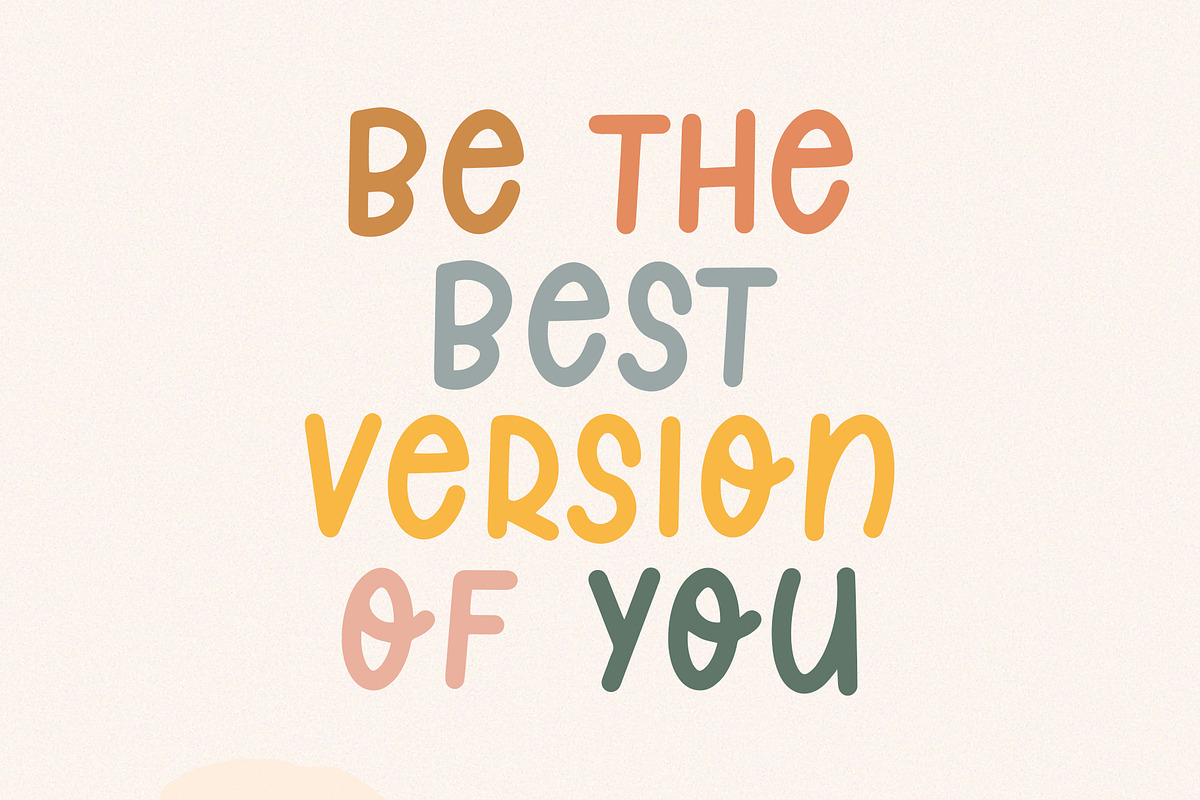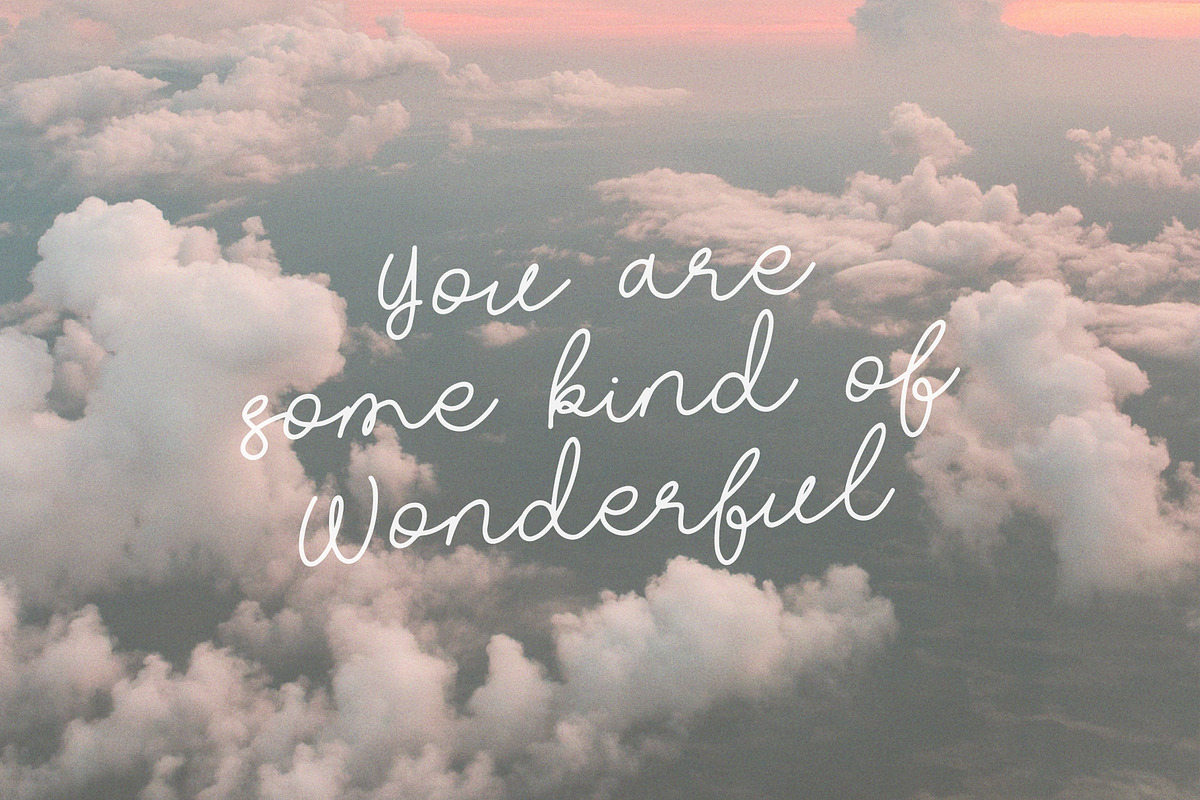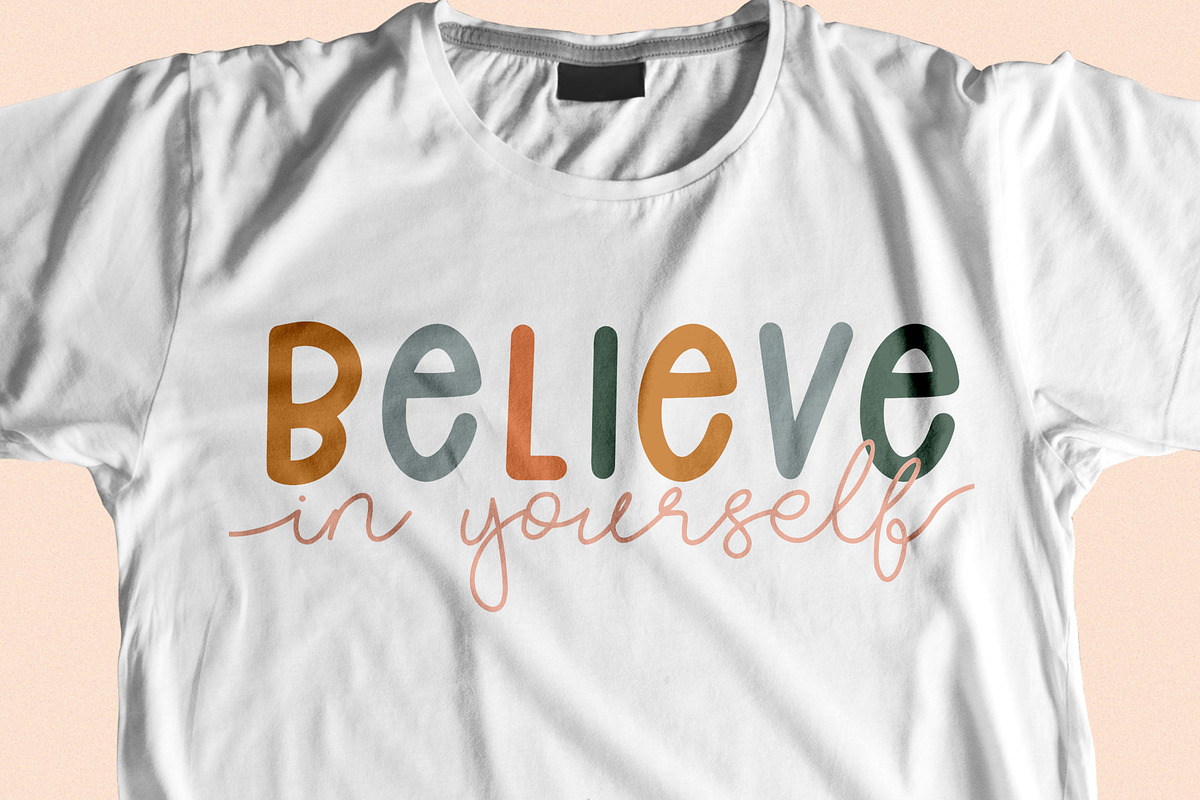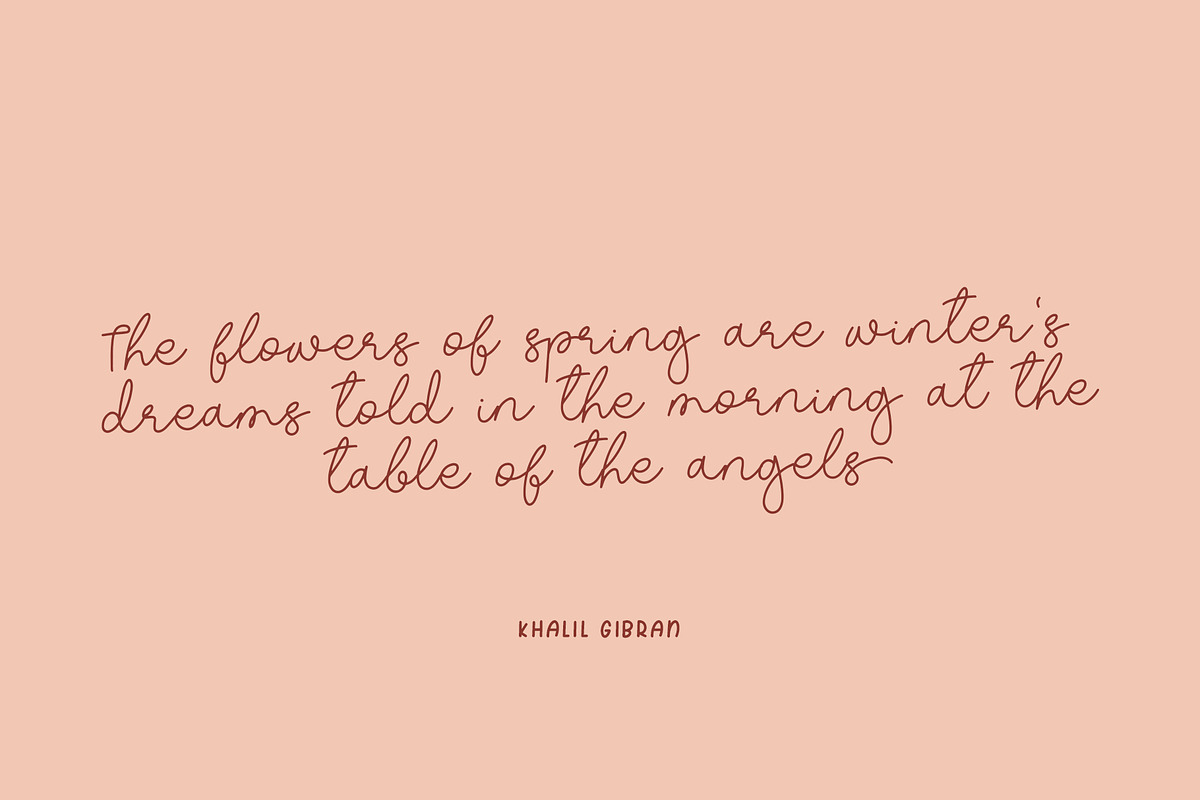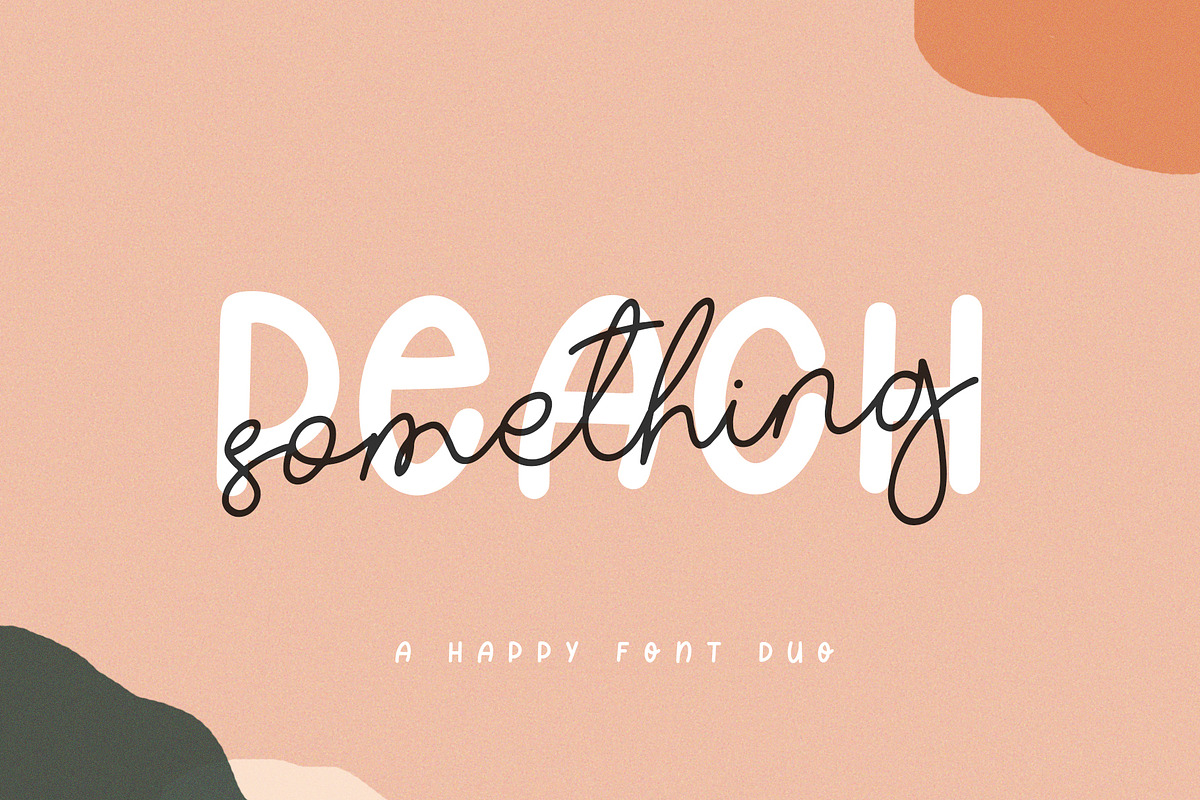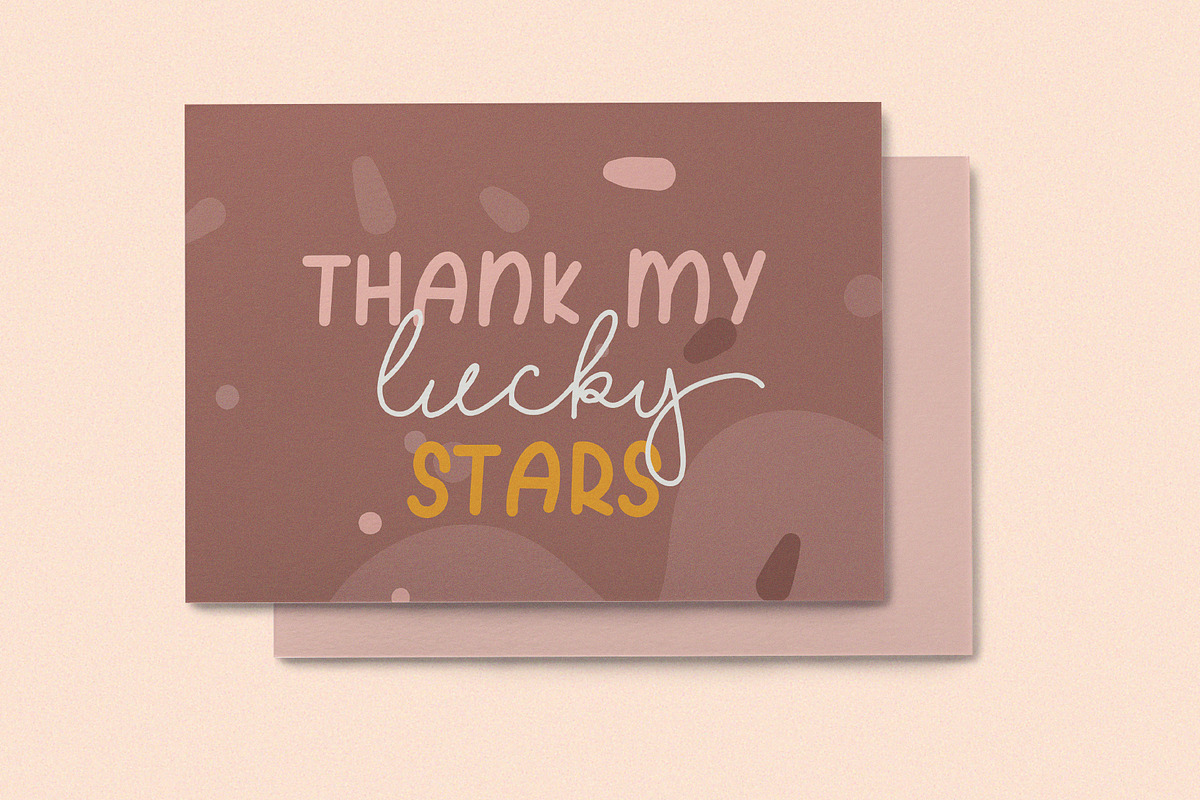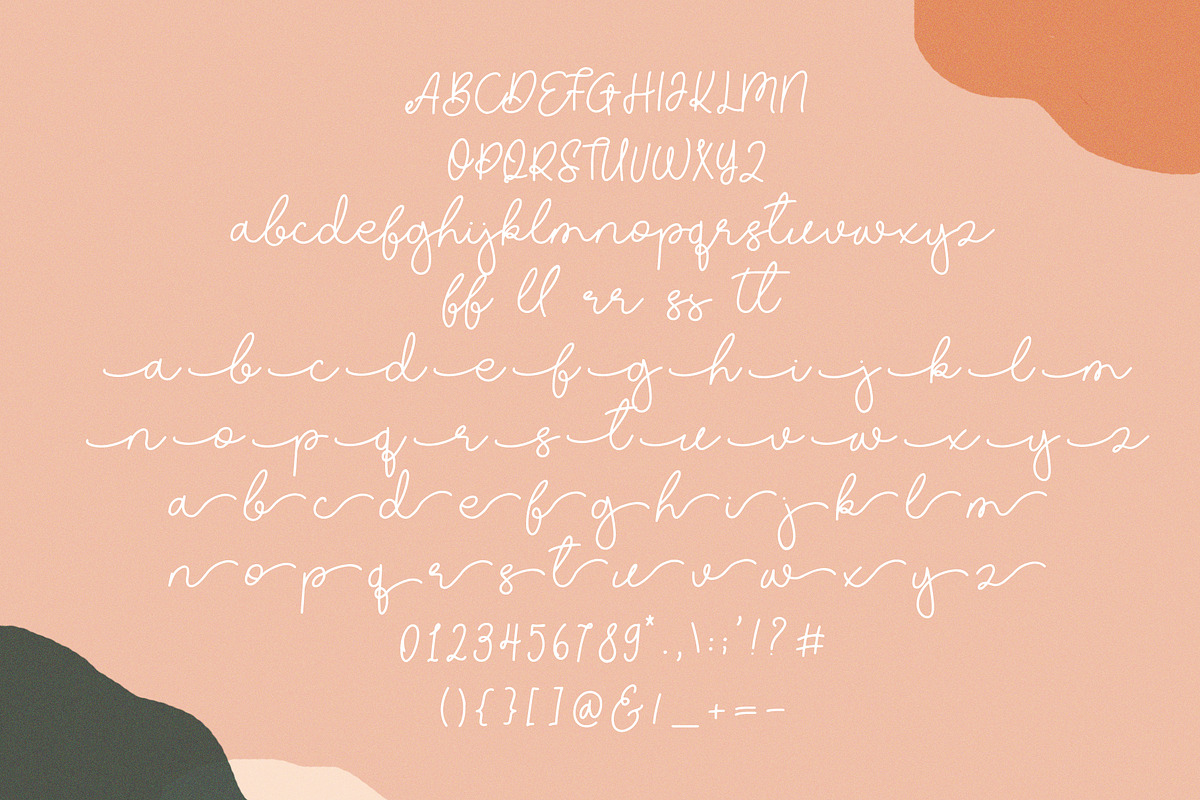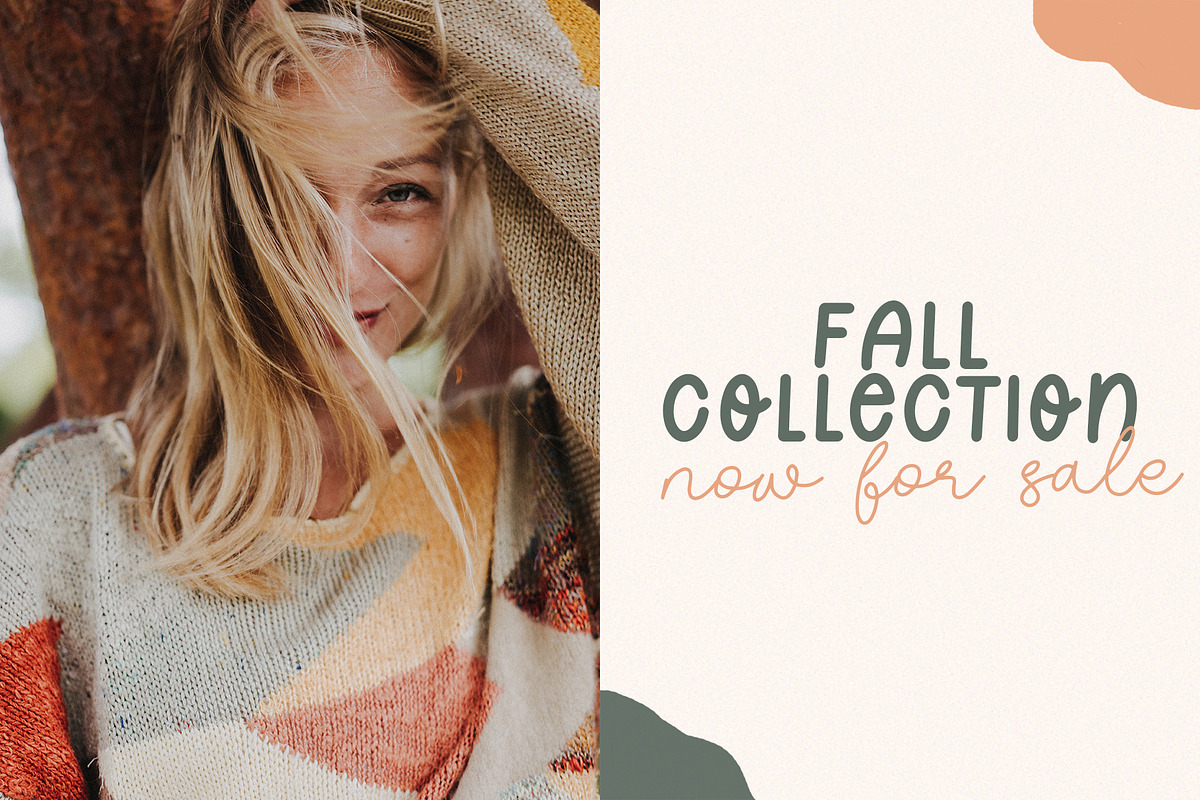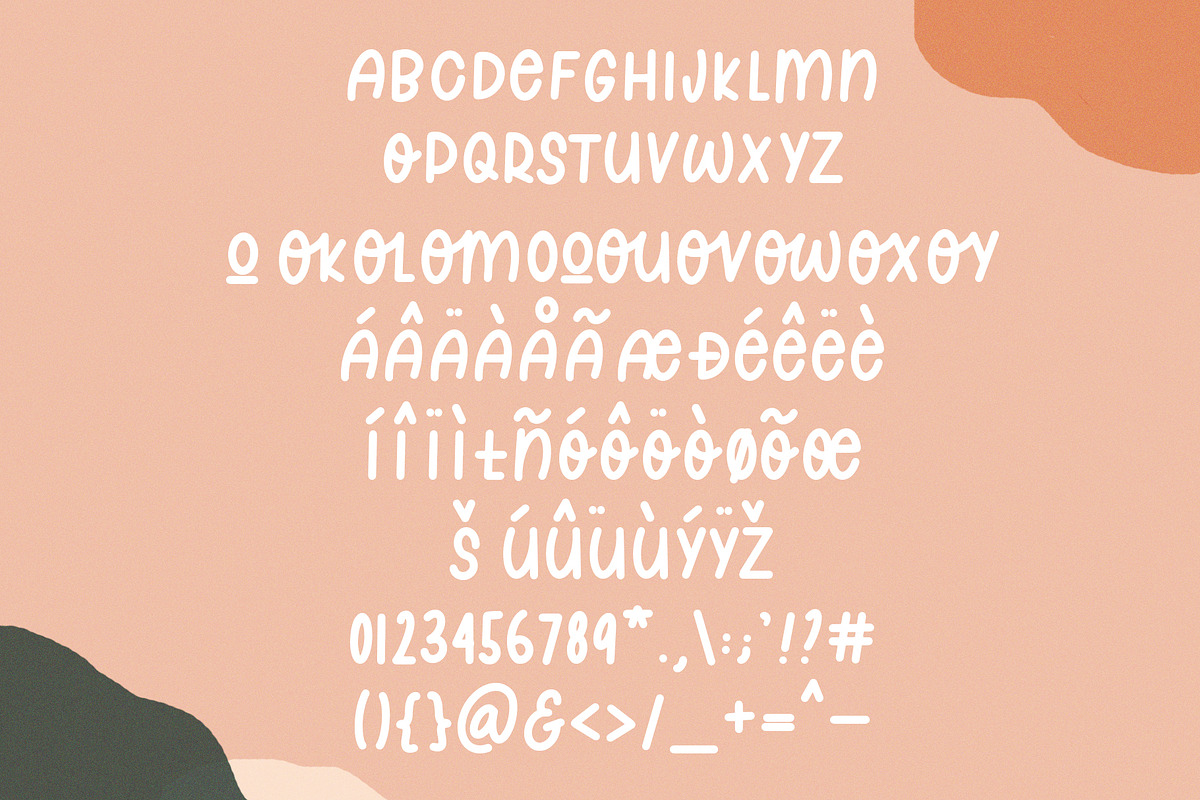
Something Peach
Something Peach is a happy font duo !
Something Peach script a handwritten monoline font. This font includes all upper and lower case standard character, beginning and ending character, punctuation and numerals.
Something Peach sans a handwritten monoline font. This font includes all upper standard character, punctuation, numerals and multilingual characters.
You can create perfect and unique design of your wedding postcard, branding, invitations, quotes, prints, and many more!
My only issue with this font is that you have to be using caps lock when using the sans font. Otherwise, the font will not show as it should. Usually, when a font comes with only uppercase letters, it'll do so automatically without turning on caps lock. Nonetheless, I do like this font! It's super cute and can be used for many projects.